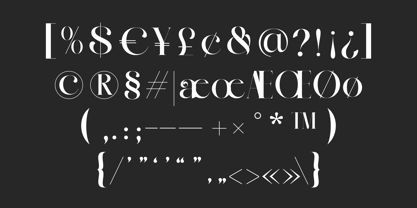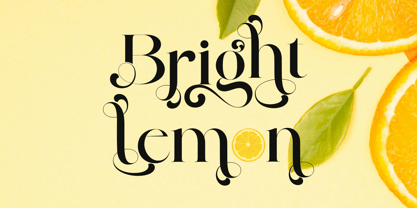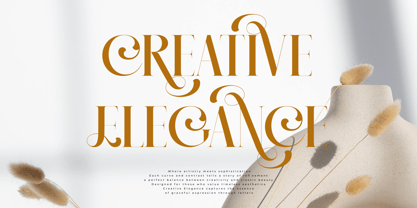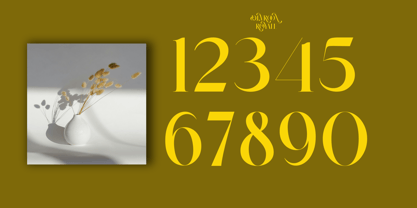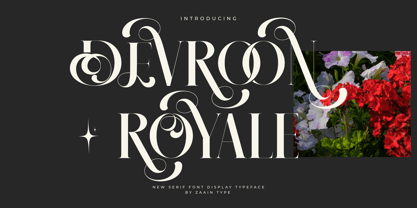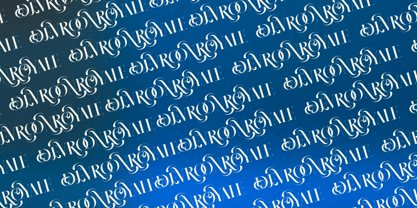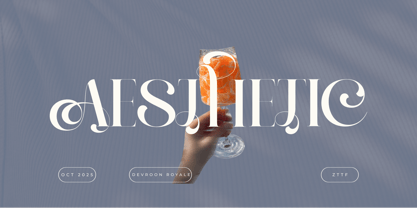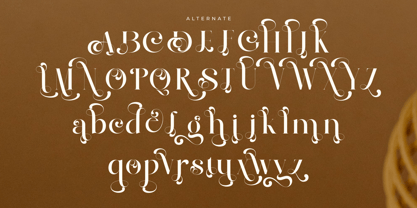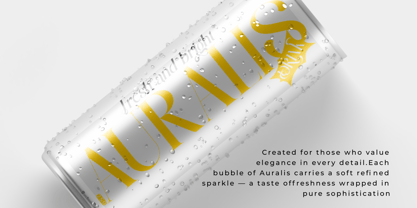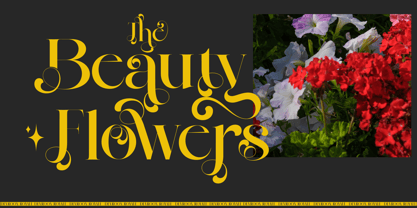
Devroon Royale
by Zaain Type
The Devroon Royale Font Family was designed by Ju Naen and published by Zaain Type. Devroon Royale contains 2 styles.
Devroon Royale is a timeless serif typeface that embodies sophistication and grace. With its refined contrast between thick and thin strokes, elegant curves, and stately proportions, Devroon Royale brings a sense of classic prestige to modern design. Each letter is carefully crafted to balance strength and delicacy, making it perfect for luxury branding, editorials, invitations, and high-end packaging